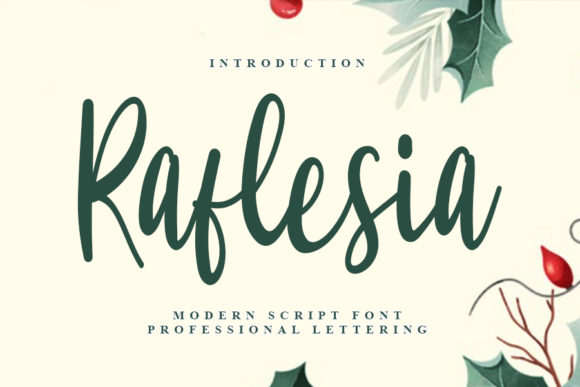
Immerse yourself in the world of Raflesia, a captivating script font family that exudes elegance and charm. Designed by Inermedia STUDIO, Raflesia is a masterpiece of digital calligraphy, meticulously crafted to evoke a sense of joy and romance in every design project.
With its flowing lines, delicate curves, and playful flourishes, Raflesia dances across your screen, leaving a trail of beauty in its wake. Its enchanting characters evoke the spirit of handwritten letters, adding a personal touch to your creations. Each glyph is a work of art, meticulously shaped to provide visual harmony and legibility.
Picture your business cards adorned with Raflesia's graceful strokes. Your name and contact information will come alive, radiating a sense of professionalism and artistry. The world of branding beckons, as Raflesia becomes your secret weapon for creating logos, brochures, and promotional materials that leave a lasting impression.
Unleash your inner artist and explore the endless possibilities of Raflesia. Whether you're designing wedding invitations, crafting social media posts, or simply adding a touch of elegance to your personal projects, this versatile font family will elevate your vision.
Don't settle for ordinary fonts. Embrace the magic of Raflesia and watch your designs bloom into masterpieces. Discover the beauty of handwritten elegance today and let Raflesia transform your creative endeavors into works of art.